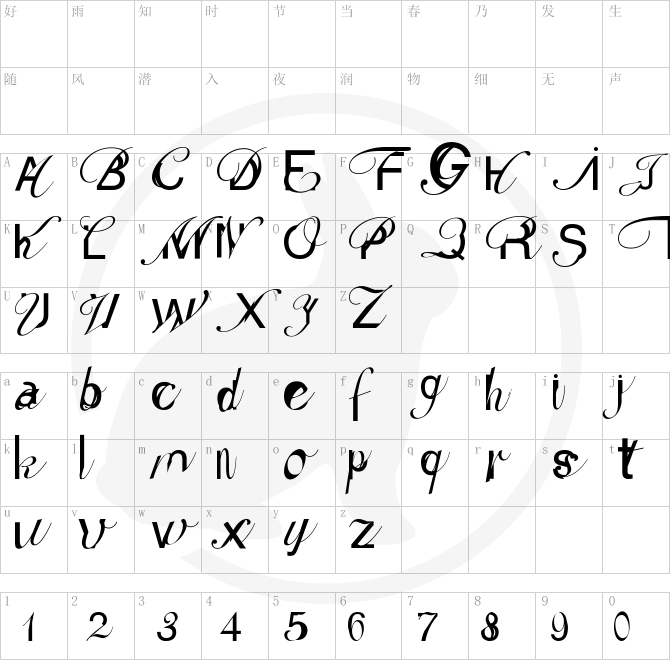
- Font Name:2RebelsUn
2RebelsUn.ttf is a very beautiful artistic font, 2RebelsUn.ttf is widely used in the design and printing of various books and pictures,2RebelsUn.ttf has a strong visual impact,2RebelsUn.ttf is a commonly used font in newspapers, magazines and books, and is used in posters, e-commerce Poster design, store design, logo design, font design and other fields.2RebelsUn.